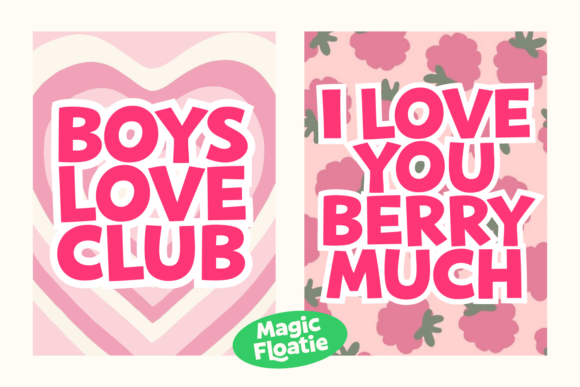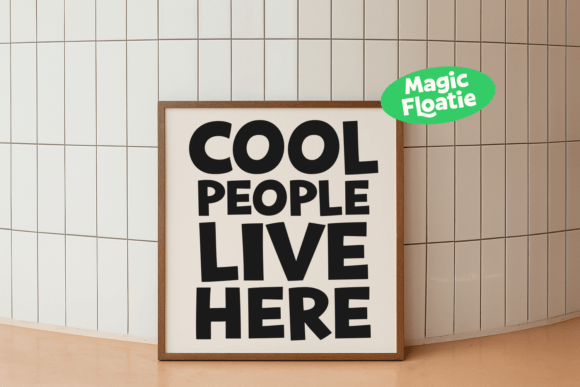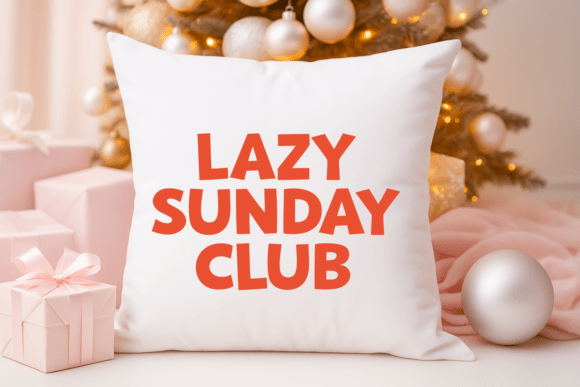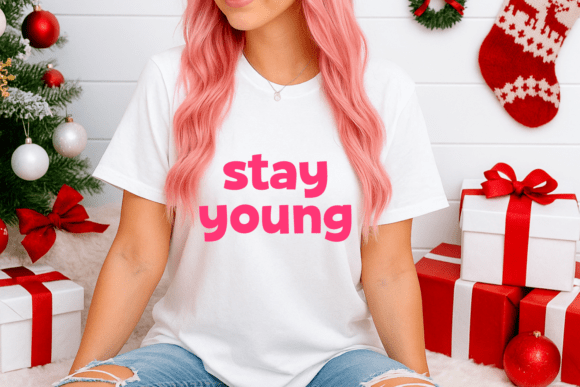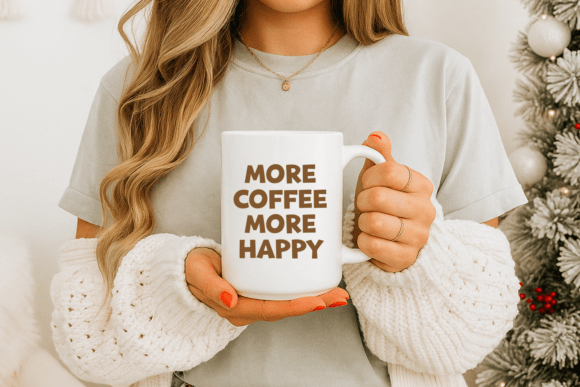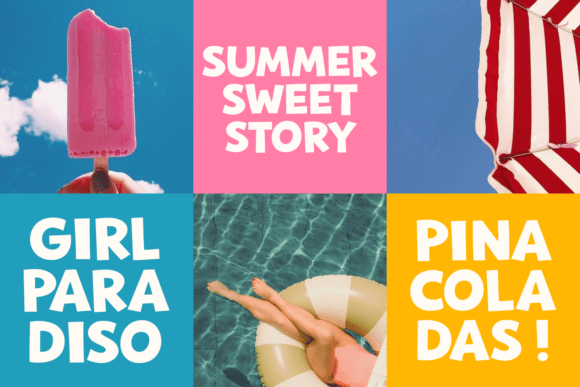
Introduction to Magic Floatie Font
Have you ever stumbled upon a design element that instantly sparks creativity and makes your project shine? For me, that moment happened when I discovered the Magic Floatie Font. Its bold, playful vibe and chunky shapes have been a game-changer for my designs, adding a modern and fun twist to everything from social media graphics to kids’ projects.
As a designer, I know how valuable it is to have a reliable design resource that can elevate your creative project. The Magic Floatie Font is more than just a pretty face – it’s a high-quality font that’s perfect for digital and print designs alike. With its transparent background and bold lettering, it’s guaranteed to make your designs stand out. Whether you’re working on a free download or a paid project, this font is sure to be a hit.
So, what makes the Magic Floatie Font so special? Let’s dive in and explore its features, uses, and benefits for designers like you.
Key Features of Magic Floatie Font
- Features a transparent background, allowing for seamless integration with various backgrounds and designs.
- Unique, hand-drawn style and whimsical feel make it ideal for illustrations, graphics, and children’s content.
- Perfect for designers seeking a one-of-a-kind, creative font to elevate their design projects.
Honest Review: Magic Floatie Font
I recently came across the Magic Floatie Font and decided to give it a try for my next creative project. As a designer, I’m always on the lookout for high-quality design resources that can elevate my work.
- ✨ Unique and playful design: The Magic Floatie Font has a whimsical feel to it, perfect for projects that need a bit of magic.
- ✨ High-quality glyphs: The font is well-crafted, with clear and legible characters.
- ✨ Transparent background: The font comes with a transparent background, making it easy to integrate into any design.
- ⚠️ Limited font styles: While the Magic Floatie Font is unique, it’s limited to a single style, which may not be suitable for all projects.
- ⚠️ No bold or italic variants: If you need bold or italic text, you may need to rely on other fonts or workarounds.
Overall, I’d say the Magic Floatie Font is a solid addition to any designer’s toolkit. While it may have some limitations, its unique design and high-quality glyphs make it a great choice for creative projects. If you’re looking for a fun and playful font, the Magic Floatie Font is definitely worth checking out.
Download the Magic Floatie Font and install it on your computer. You can then use it in PowerPoint and Word by selecting it from the font menu. The Magic Floatie Font is perfect for creating attention-grabbing headings and titles in your presentations and documents. Its transparent background makes it easy to use over any background image or color.
Tips for Getting the Most Out of Magic Floatie Font
Experiment with different font sizes, colors, and styles to create unique and eye-catching designs. Use the Magic Floatie Font to add a creative touch to your headings, titles, and body text. You can also use it to create custom icons and graphics.
The Magic Floatie Font is perfect for use in a variety of creative projects, including logos, icons, graphics, presentations, and documents. Its high-quality design and transparent background make it easy to use in any design project.